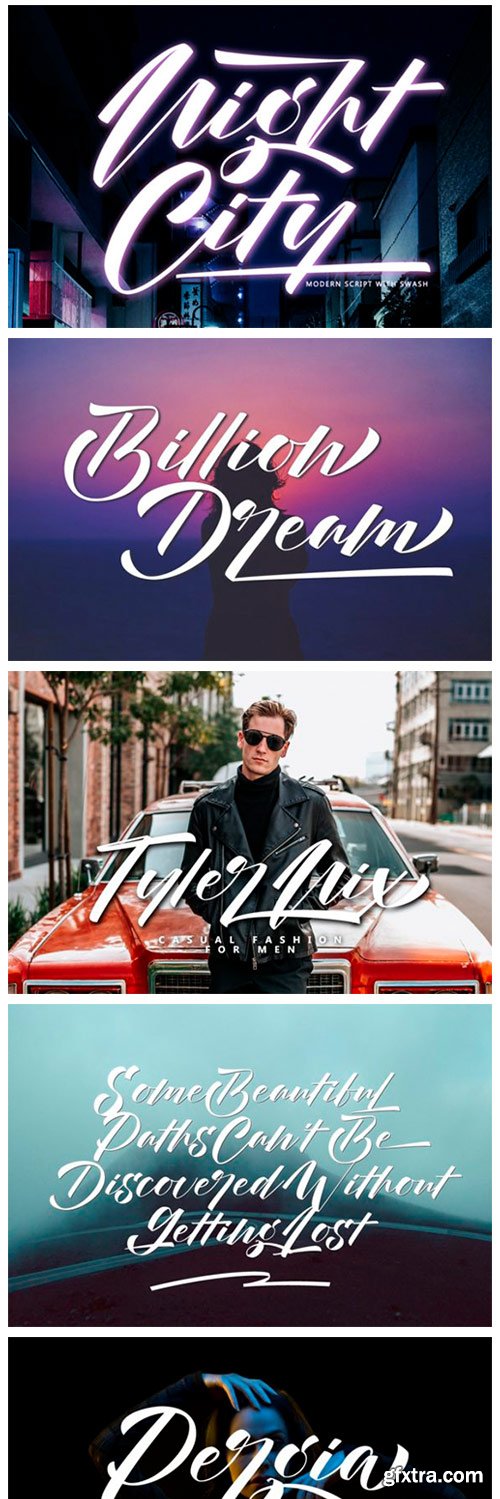
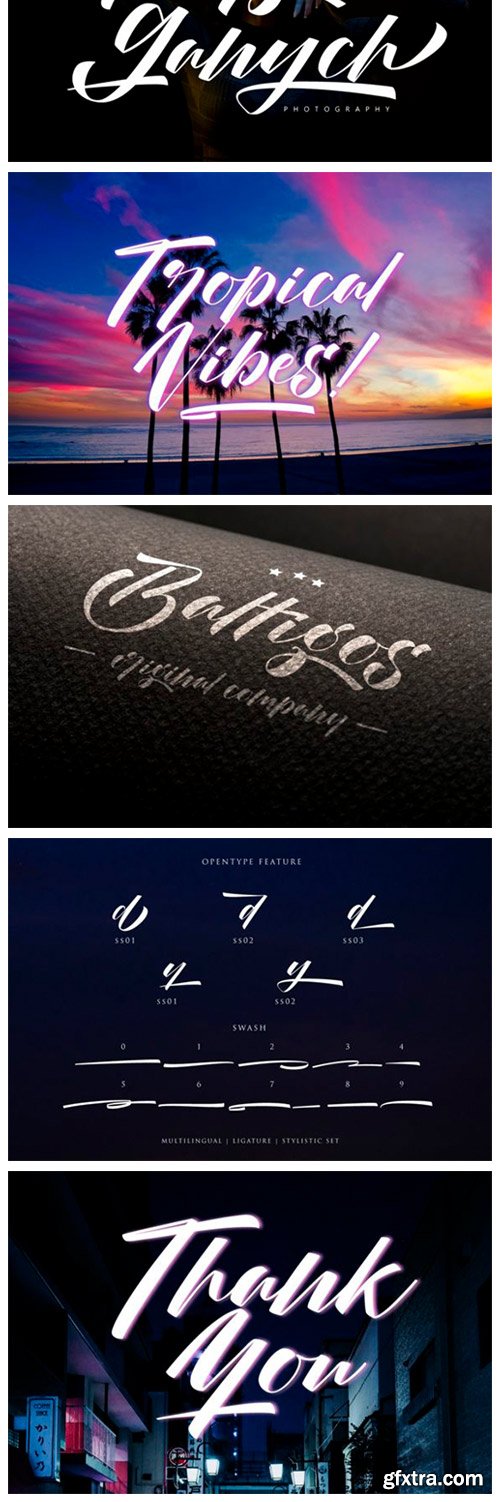
Night City Font
Night City is a beautiful and bold handwritten font that’s great for delivering any message with confidence, authenticity and charm. It will elevate a wide range of crafting ideas, from cards, to branding, labels and much more. Night City is PUA encoded which means you can access all of the amazing glyphs and ligatures with ease!
Litha Lotte Font
Litha Lotte is a romantic and sweet calligraphy typeface with characters that dance along the baseline. It will add a luxury spark to any design project that you wish to create! This font is PUA encoded which means you can access all of the amazing glyphs and ligatures with ease!
Hornet Font
Hornet is a cool, clean and thin lettered display font. This font is ideal for writing web designs, business cards, or pretty much anything else that requires a techno touch.
Mandilla Font
Mandilla is a ravishing script font, defined by a natural flow. This versatile script font has a wide spectrum of applications ranging from greeting cards to headlines and is guaranteed to add a romantic feel to your next project.
Shwets Font
Shwets is a cool, geometric and thin lettered display font. This font is ideal for writing web designs, business cards, or pretty much anything else that requires a futuristic touch.
Font Branding come with masculine themes. It matches applies in some designs such as the logotype, brand, packaging, quotes, music poster, t-shirt, cover book and more custom design. The features uppercase, lowercase, numeral, punctuation & symbol, multilingual support.
Wordwalker is a freehand casual marker script that designed to appear as if it was written by wide marker. This original look will appeal to a wide range of crafty ideas, from letterheads and titles, to stationery. A clean legible style yet friendly & fun. Wordwalker features extended characters, containing West European diacritics & ligatures, making it suitable for international environments & publications.
Virgia | A Bold Signature Font with a calligraphy style, So beautiful on invitation like greeting cards, branding materials, business cards, quotes, posters, and more!